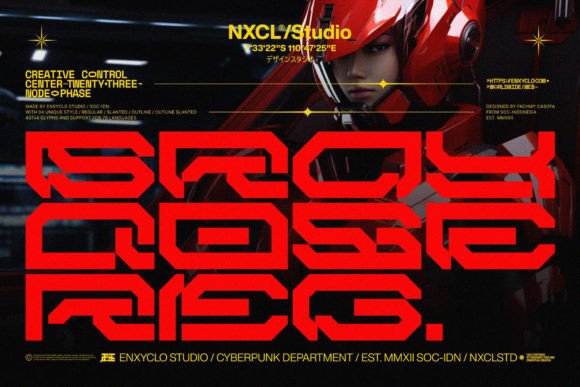
The Ultimate Design Game-Changer: Brayqose Font
I’ll never forget the struggle I faced while working on a futuristic sci-fi project. My client wanted a font that would transport their audience to a cyberpunk world, but I was stuck with the same old boring fonts. That’s when I stumbled upon NCL BRAYQOSE, a modern cyberpunk futuristic techno mecha font that completely transformed my design. In this article, I’ll share my experience with Brayqose, its features, and how to make the most of it in your designs.
An Honest Review of Brayqose Font
What I Love About Brayqose ✨
• 💻 Unique Futuristic Aesthetics: Brayqose adds a touch of innovation and sophistication to any design.
• 🔍 Highly Versatile: Perfect for a wide range of projects, from websites and posters to logos and more.
• 🤖 Cyberpunk Vibe: This font nails the cyberpunk aesthetic, making it ideal for sci-fi and tech-related projects.
While Brayqose is an amazing font, there are a few things to keep in mind:
• 🤔 Glyph Overload: With so many glyphs and OpenType features, it can be overwhelming to navigate.
• ⚠️ Limited Use in Print: Due to its futuristic design, Brayqose might not be the best choice for print projects that require a more traditional look.
The Designer’s Inspiration Behind Brayqose
The creators of Brayqose drew inspiration from the world of cyberpunk and sci-fi. They wanted to create a font that would capture the essence of a futuristic, high-tech world. With Brayqose, they succeeded in crafting a font that’s both modern and innovative.
Q: What type of projects is Brayqose best suited for?
A: Brayqose is perfect for projects that require a futuristic, cyberpunk aesthetic, such as sci-fi movies, tech websites, and gaming platforms.
Q: Can I use Brayqose for print projects?
A: While Brayqose can be used for print projects, it might not be the best choice for traditional or formal designs. It’s best suited for projects that require a futuristic or tech-related look.